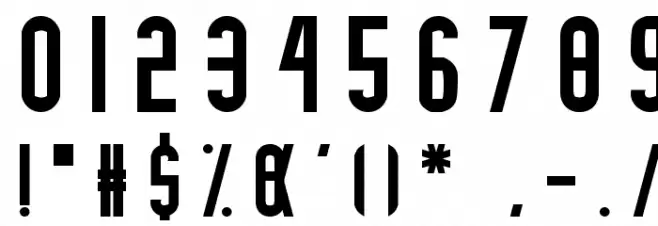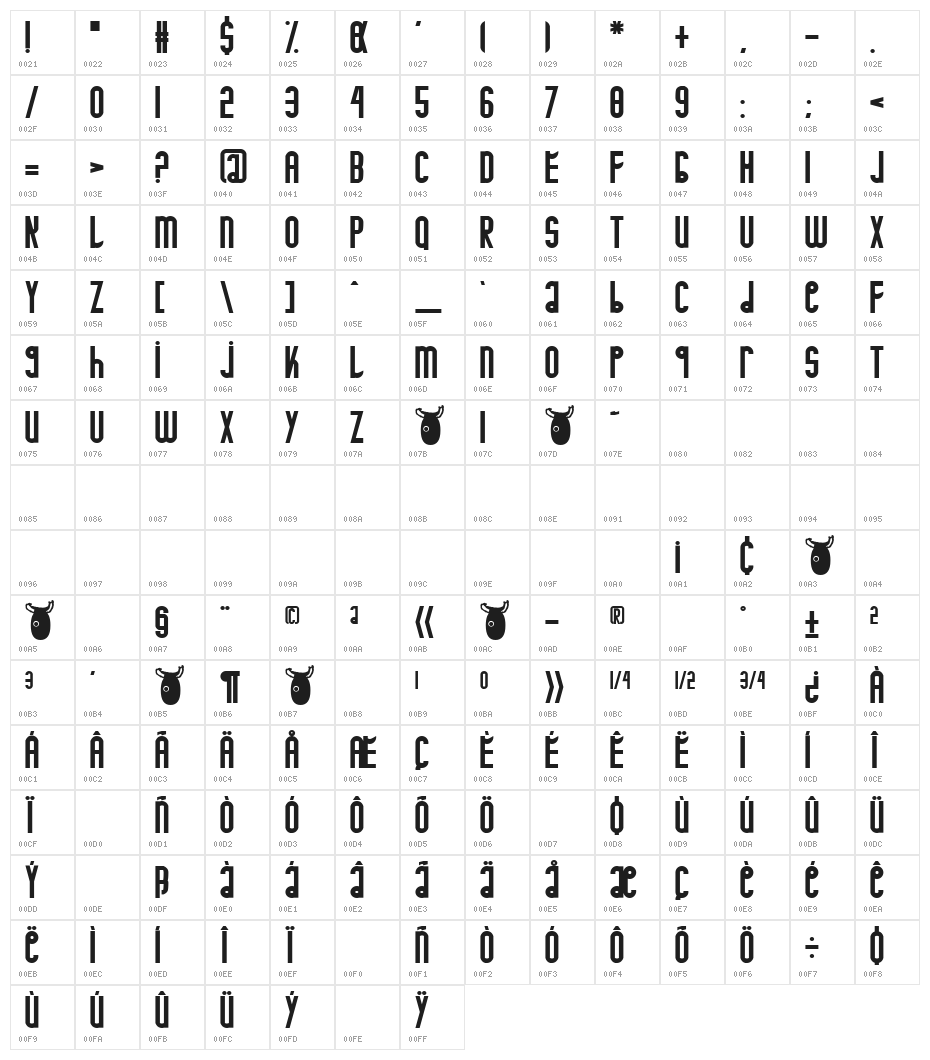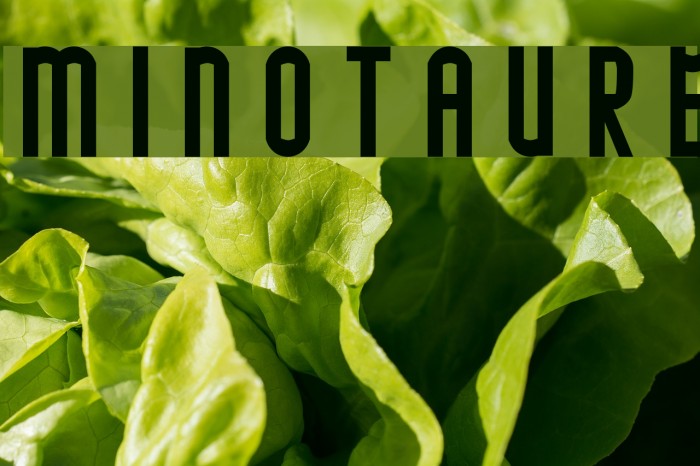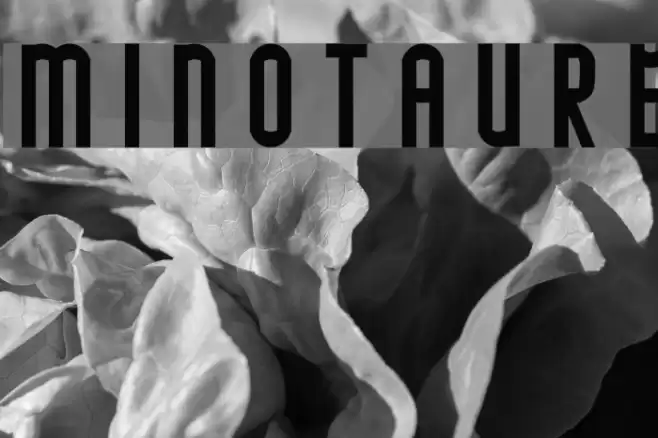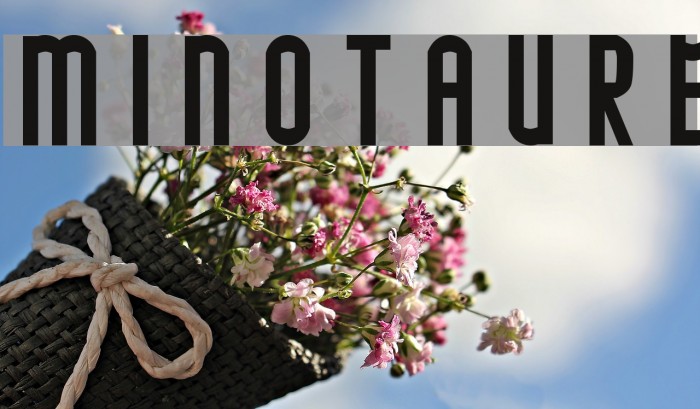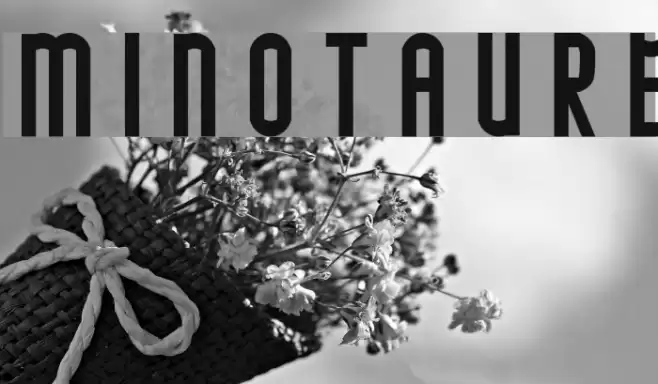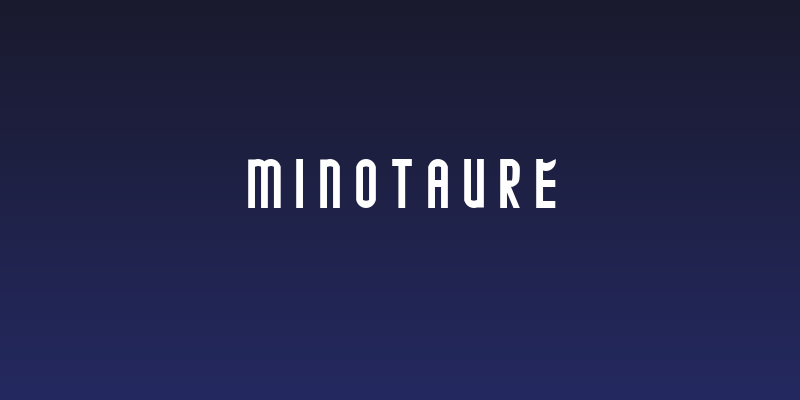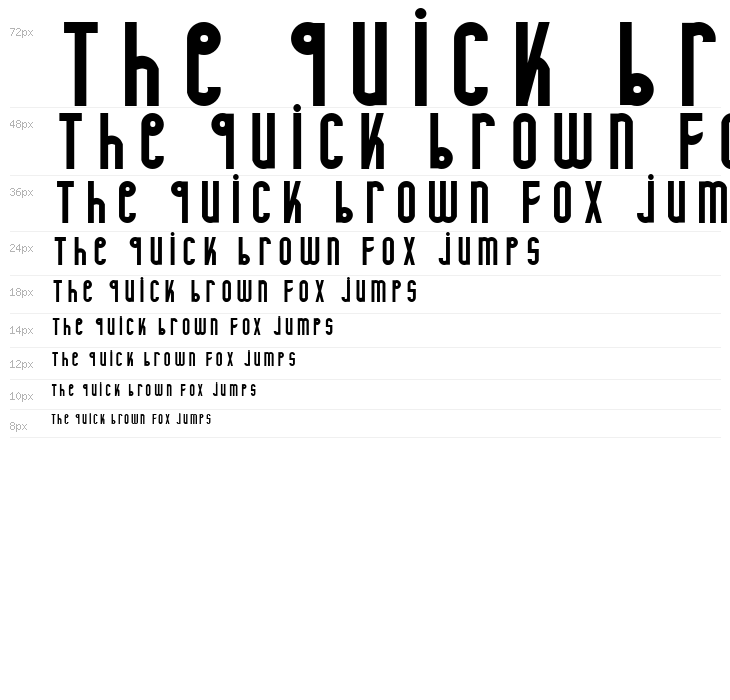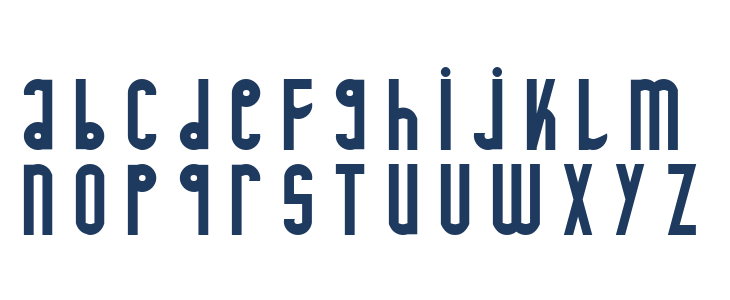
MINOTAURE Font
MINOTAURE Description
This font features a bold and striking design with a modern, geometric aesthetic. The characters are tall and narrow, with a consistent stroke width that gives them a strong and impactful presence. The uppercase and lowercase letters share a similar structure, maintaining a cohesive look across the typeface. The numbers are equally bold, ensuring readability and uniformity. Special characters are designed to match the overall style, making them suitable for various applications. The font's unique style makes it ideal for projects that require a contemporary and assertive appearance.